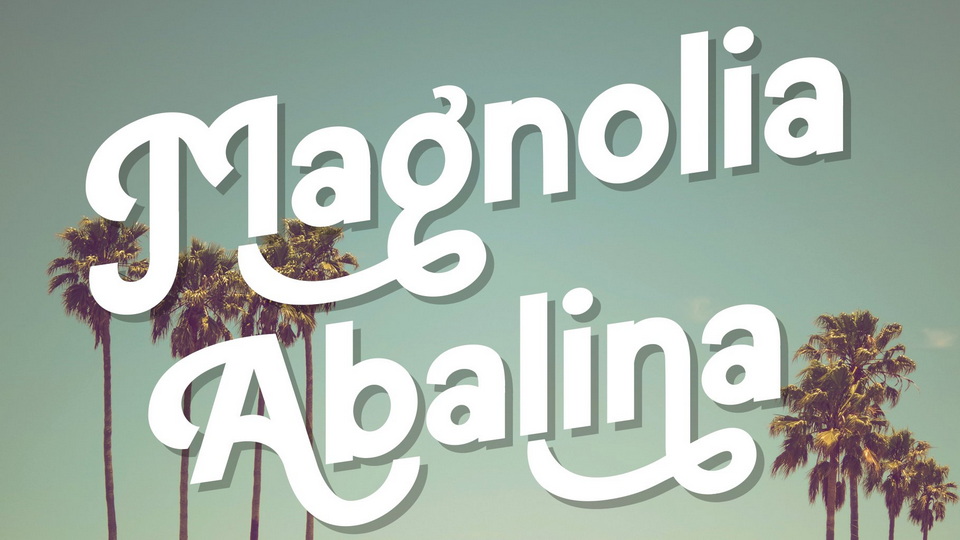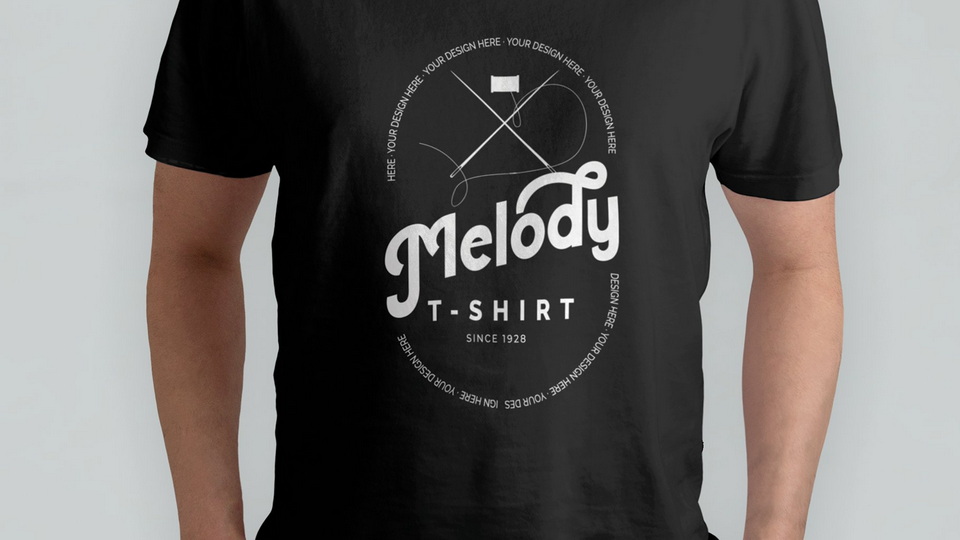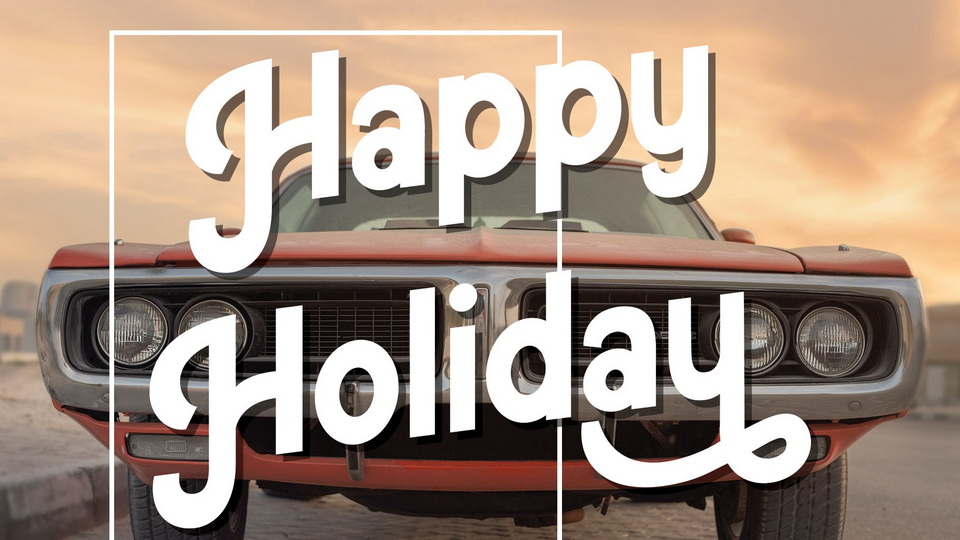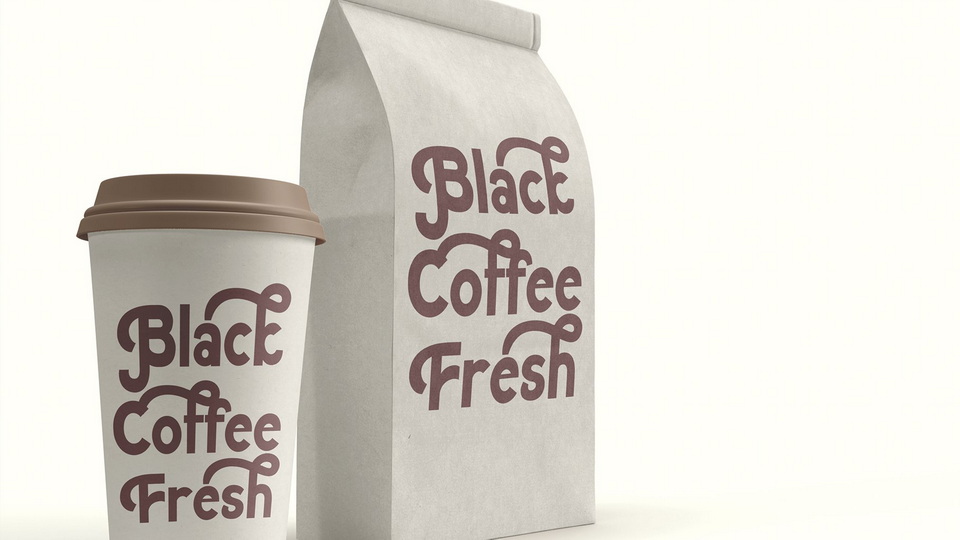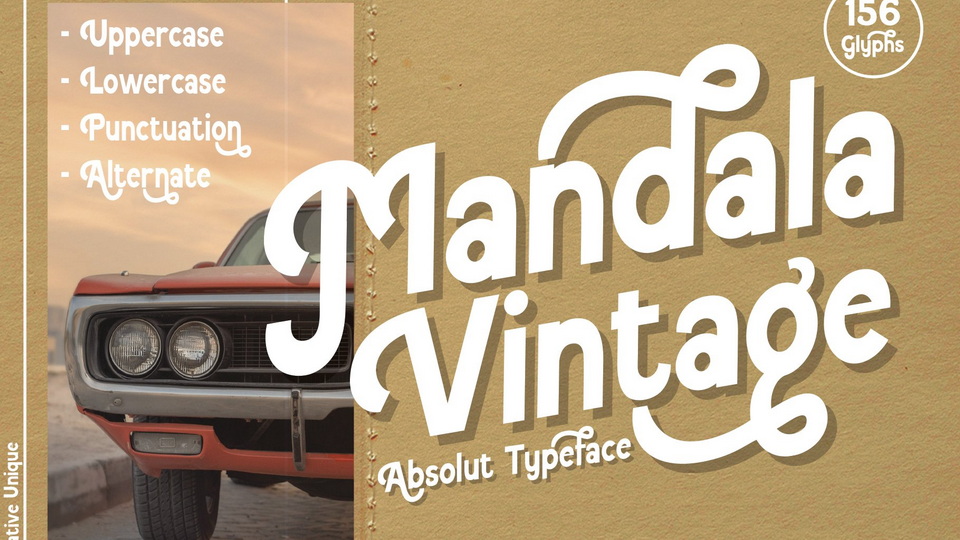
Mandala Vintage Font
Mandala Vintage is an amazing decorative font that looks so authentic ad charming. The font is perfect for wall displays, wedding invitations, social media post logos, advertisements, product packaging, product designs, labels, photography, watermarks, invitations, stationery, and any project that requires vintage taste.